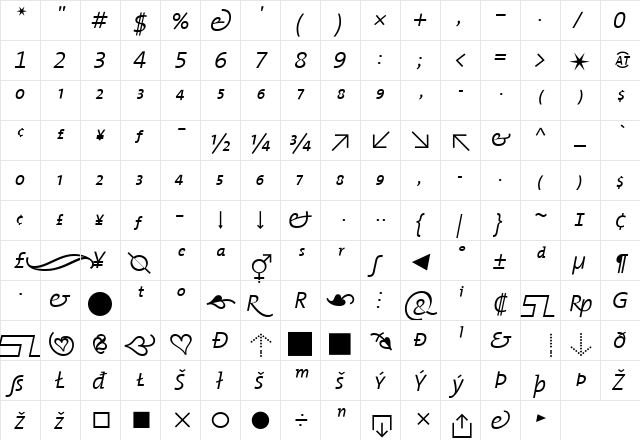
TheMixSemiLight Roman Italic
Design Context for TheMixSemiLight Typeface
TheMixSemiLight offers clean, dependable letterforms without strong stylistic allegiance, making it a practical choice for designers who need flexibility. The dynamic lean of this cut emphasises speed and emphasis in any layout. Its slender proportions lend an understated elegance to any composition.